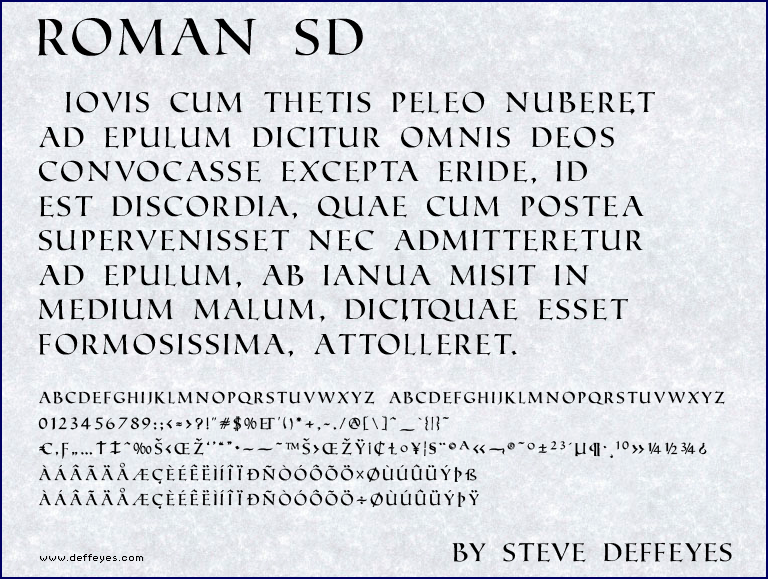
Font name: | Roman SD |
Categories | Foreign look, Roman, Greek |
Author: | Steve Deffeyes |
Note by Steve Deffeyes | |
Based on the lettering on Trajan's Column in Rome but with a little more of a calligraphic feel, rather than a carved in stone look. Newly updated Aug-2009 with a full character set. |